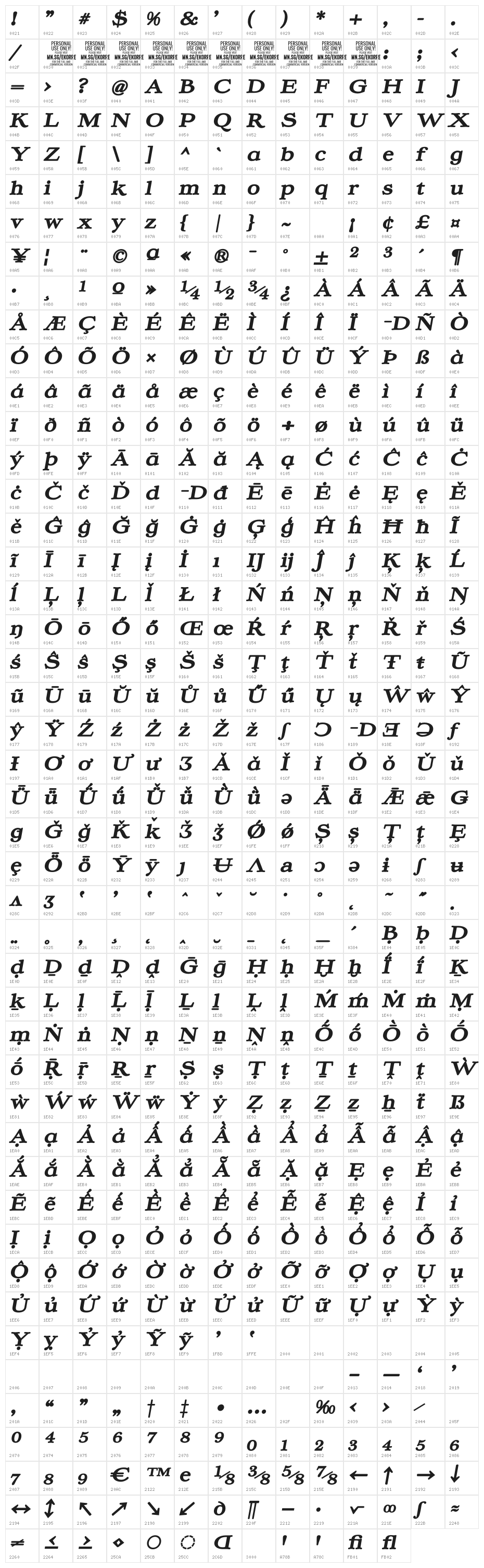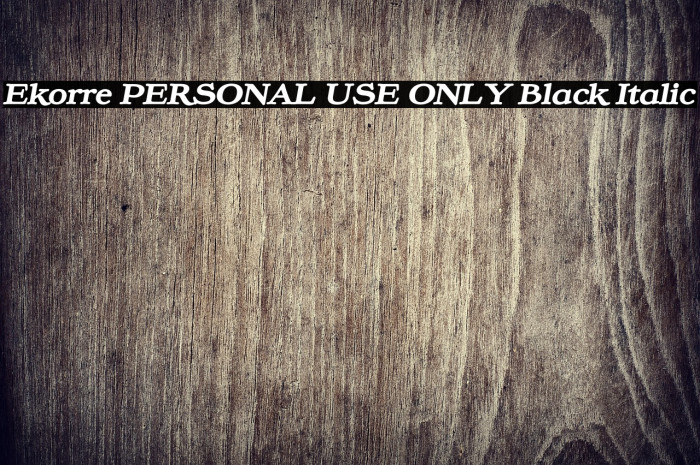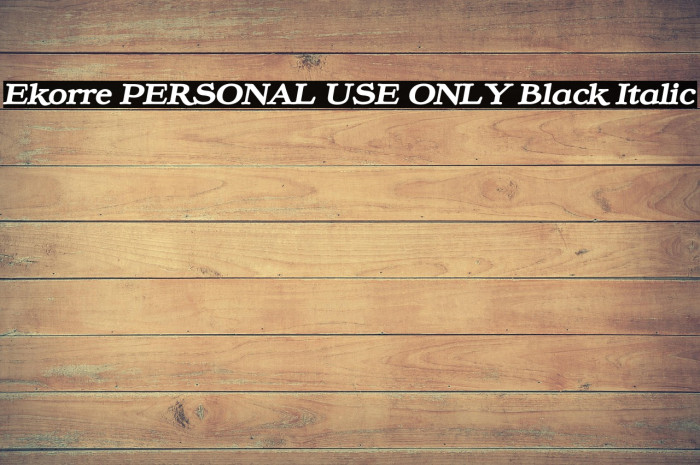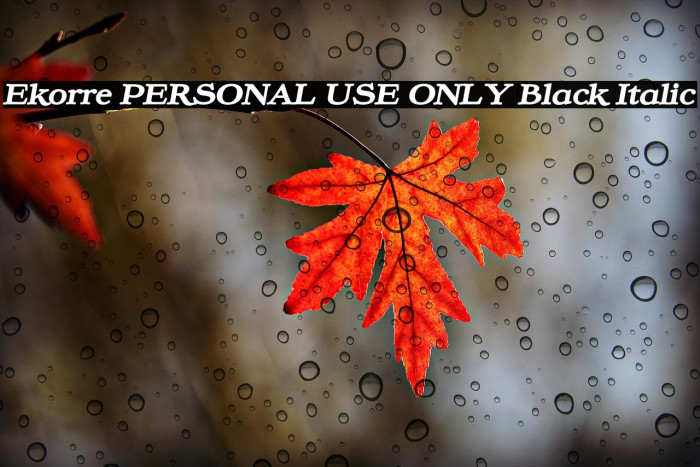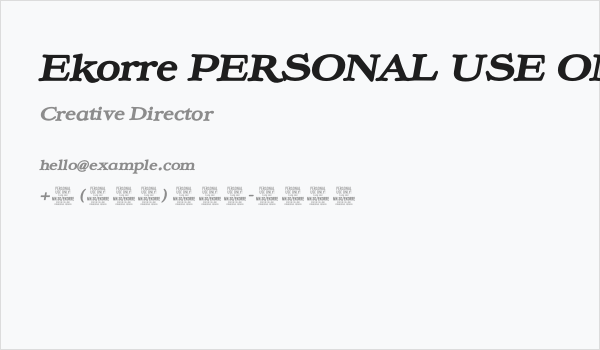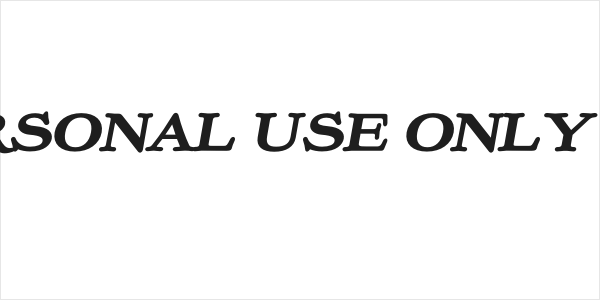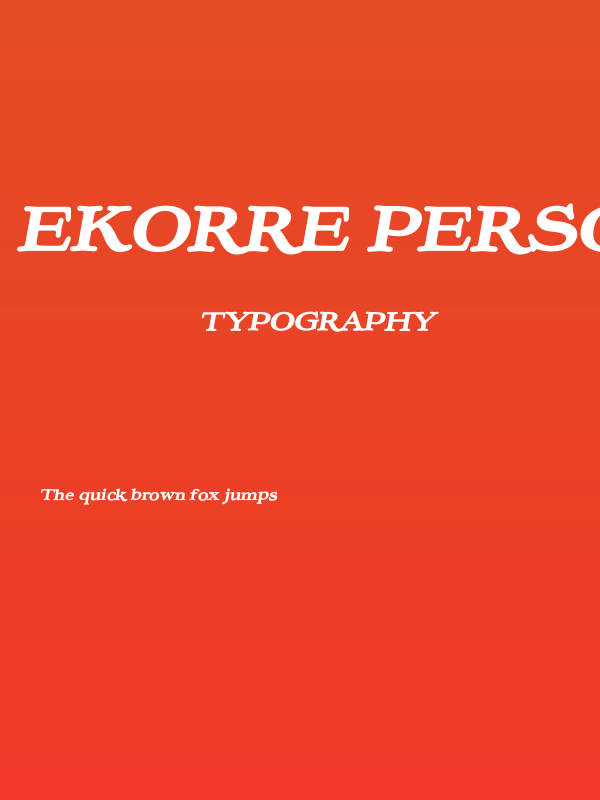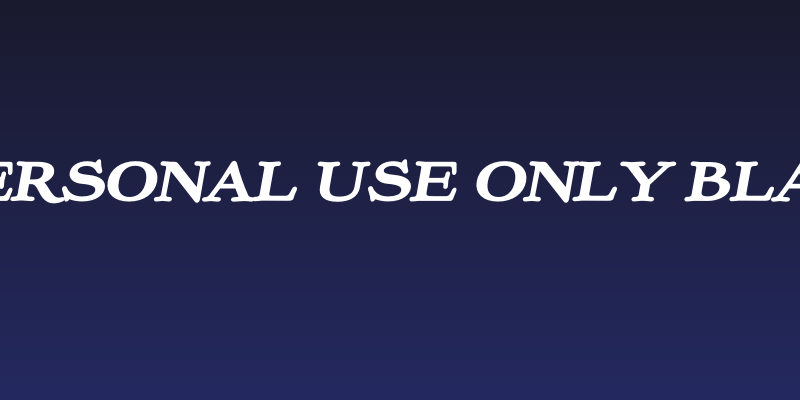
Ekorre PERSONAL USE ONLY Black Italic Font
Ekorre PERSONAL USE ONLY Black Italic Description
This font features a bold and dynamic italic style, characterized by its strong and pronounced serifs. The letters have a forward-leaning posture, giving a sense of motion and elegance. The uppercase and lowercase letters maintain a consistent weight, providing a cohesive look across the alphabet. The numerals and special characters are designed to match the overall aesthetic, ensuring uniformity. The strokes are thick, contributing to the font's bold appearance, while the serifs add a touch of classic sophistication. This font is ideal for making a statement, with its high contrast and distinctive style.